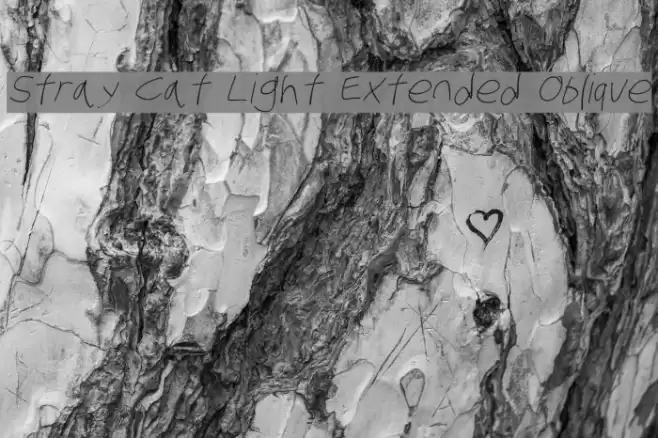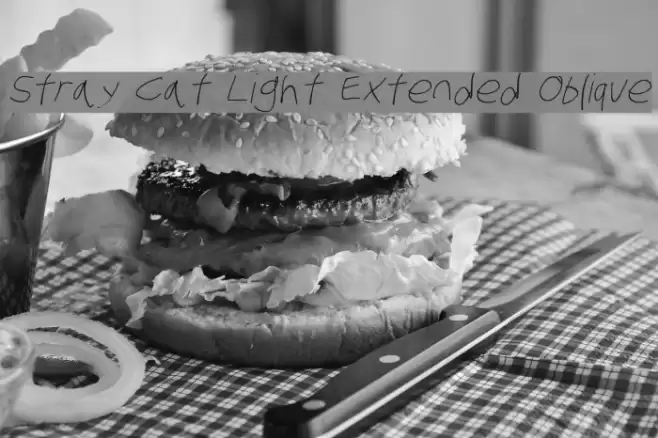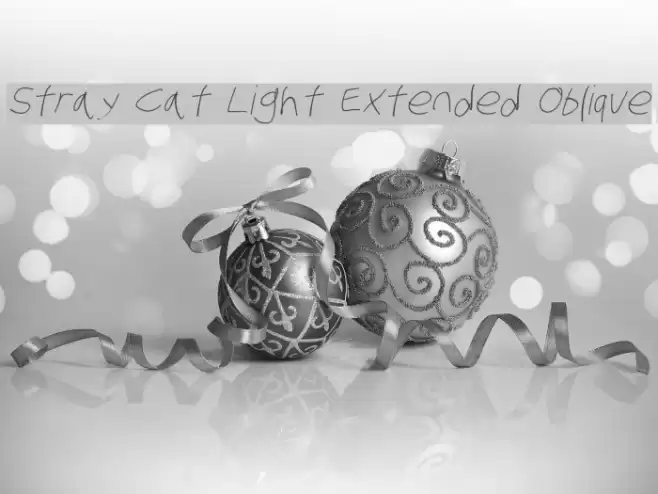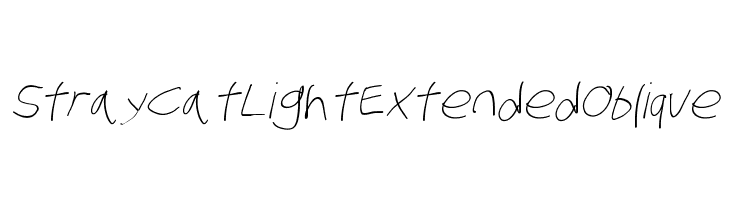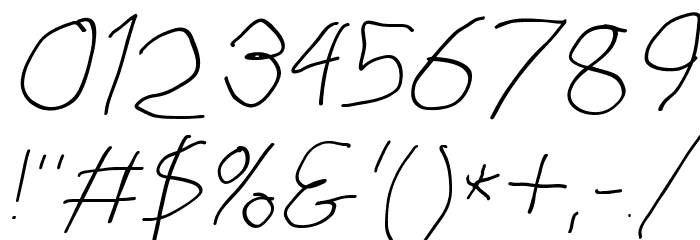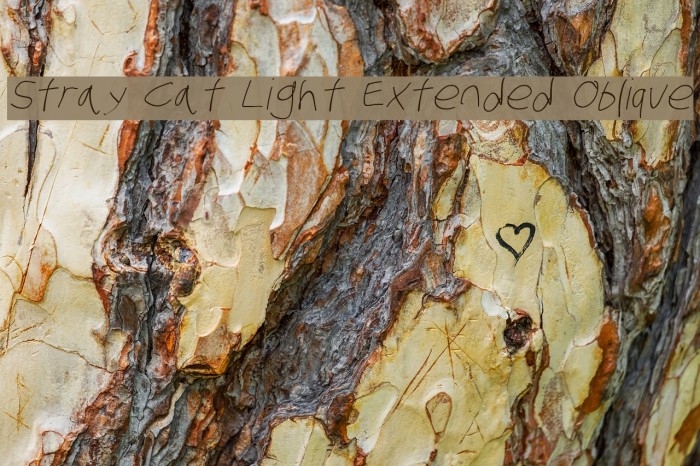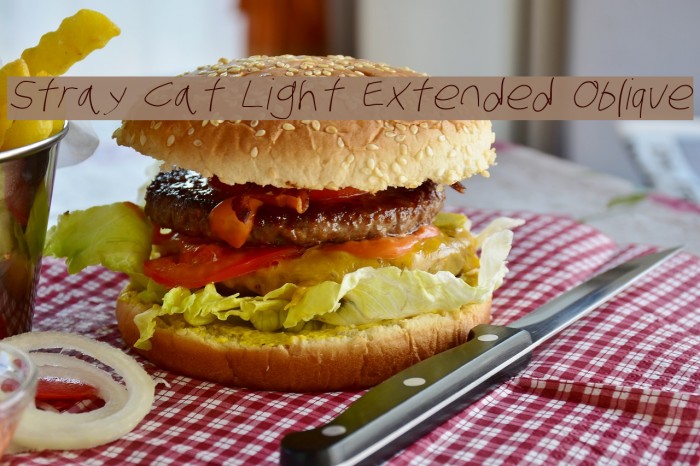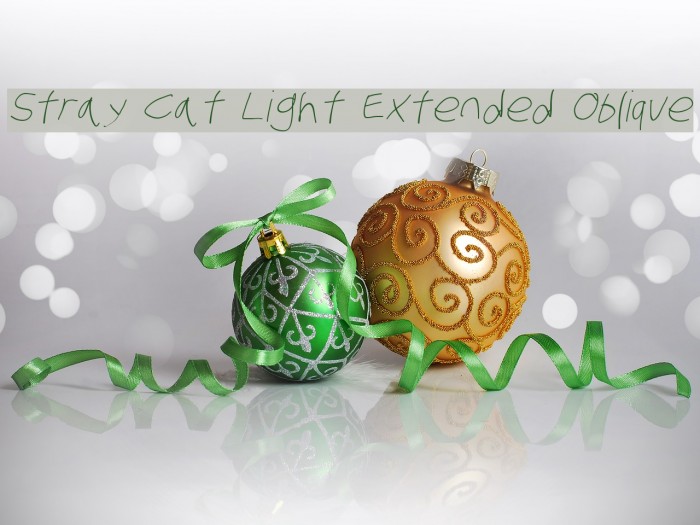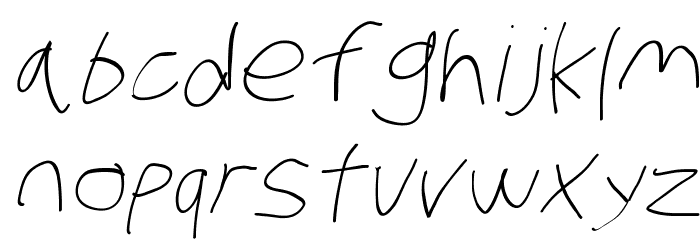
Stray Cat Light Extended Oblique Font
Stray Cat Light Extended Oblique Description
This font features a playful and casual handwritten style, characterized by its light and extended form. The letters are slightly slanted, giving an oblique appearance that adds a dynamic and informal touch. The strokes are thin and consistent, providing a sense of lightness and airiness. The characters are well-spaced, allowing for easy readability while maintaining a relaxed aesthetic. This font captures a sense of spontaneity and creativity, making it suitable for projects that aim to convey a personal or artistic feel.
A light, extended, and oblique handwritten font with a casual and playful style from Handwritten fonts.
- Proposed Projects: Ideal for personal notes, creative projects, casual branding, and artistic invitations.
- Weight: Light
- Width: Expanded
- Overall Style: Casual
- Use Case: Logos, Invitations, Personal notes